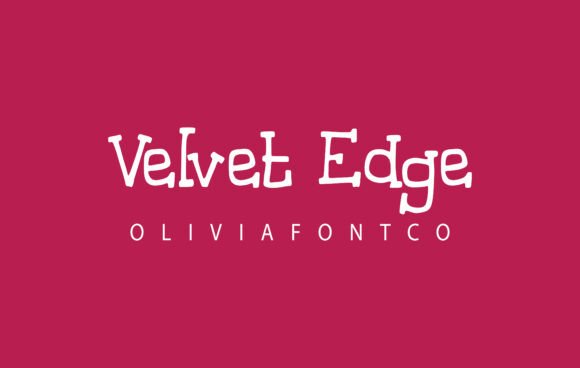
Introducing Velvet Edge Font: The Ultimate Handwritten Font for Creative Expression
Are you looking for a font that can add a touch of romance and elegance to your creative projects? Look no further than Velvet Edge Font, an authentic handwritten font designed to capture the hearts of designers and crafty enthusiasts alike. In this article, we’ll dive into the world of Velvet Edge Font, exploring its features, benefits, and uses, and why it’s becoming a favorite among creative professionals.
The Story Behind Velvet Edge Font
Velvet Edge Font is more than just a font – it’s a work of art. Expertly designed to evoke a sense of romance and whimsy, this font is perfect for those who want to add a personal touch to their designs. With its unique, handwritten style, Velvet Edge Font is sure to make your creative projects stand out from the crowd.
Key Features of Velvet Edge Font
- Authentic Handwritten Style: Velvet Edge Font boasts an authentic handwritten style that exudes a sense of warmth and personality.
- Legible and Versatile: This font is not only beautiful but also highly legible, making it perfect for use as title or body text.
- Romantic Touch: With its elegant strokes and flowing lines, Velvet Edge Font adds a touch of romance to any design.
Uses of Velvet Edge Font
Velvet Edge Font is an incredibly versatile font that can be used in a wide range of creative projects. Here are just a few ideas to get you started:
- Magazine Headlines: Add a touch of elegance to your magazine headlines with Velvet Edge Font.
- Social Media Graphics: Create stunning social media graphics that stand out from the crowd with this beautiful font.
- Branding and Packaging: Use Velvet Edge Font to create a cohesive brand identity that exudes sophistication and style.
- Wedding Invitations: Make your wedding invitations truly special with Velvet Edge Font.
- Cards and Stationery: Add a personal touch to your cards and stationery with this beautiful handwritten font.
Why Choose Velvet Edge Font?
With so many fonts available, why choose Velvet Edge Font? Here are just a few reasons why this font is becoming a favorite among creative professionals:
- Unique and Authentic: Velvet Edge Font is a truly unique and authentic handwritten font that will set your designs apart.
- Elegant and Sophisticated: This font exudes elegance and sophistication, making it perfect for high-end designs.
- Easy to Read: Despite its elegant style, Velvet Edge Font is highly legible, making it perfect for use as body text.
Tips for Using Velvet Edge Font
To get the most out of Velvet Edge Font, here are a few tips to keep in mind:
- Use it Sparingly: While Velvet Edge Font is beautiful, it can be overwhelming if used too much. Use it sparingly to add a touch of elegance to your designs.
- Pair it with Other Fonts: Experiment with pairing Velvet Edge Font with other fonts to create a unique and interesting design.
- Experiment with Colors: Don’t be afraid to experiment with different colors to find the perfect match for your design.
In conclusion, Velvet Edge Font is a beautiful and versatile handwritten font that is perfect for creative professionals looking to add a touch of romance and elegance to their designs. With its unique and authentic style, legibility, and range of uses, it’s no wonder that Velvet Edge Font is becoming a favorite among designers and crafty enthusiasts alike. Whether you’re creating magazine headlines, social media graphics, or wedding invitations, Velvet Edge Font is sure to take your creative projects to the next level.